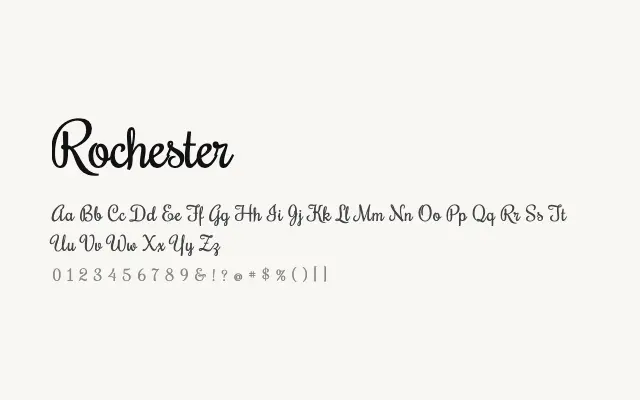
Rochester
A refined formal script with strong calligraphic roots, suited to ceremonial and luxury applications.
Rochester carries the hallmarks of classic copperplate penmanship — fluid strokes, elegant swashes, and confident letterform connections. It works well for wedding stationery, invitations, and upmarket branding where tradition and formality are desired. Available in a single weight, it is best used at large sizes where its detail can be appreciated.
Rochester is an elegant, high-contrast formal script with flowing letterforms and pronounced calligraphic influence. The joins between letters are smooth and the overall feel is traditional and ceremonial.